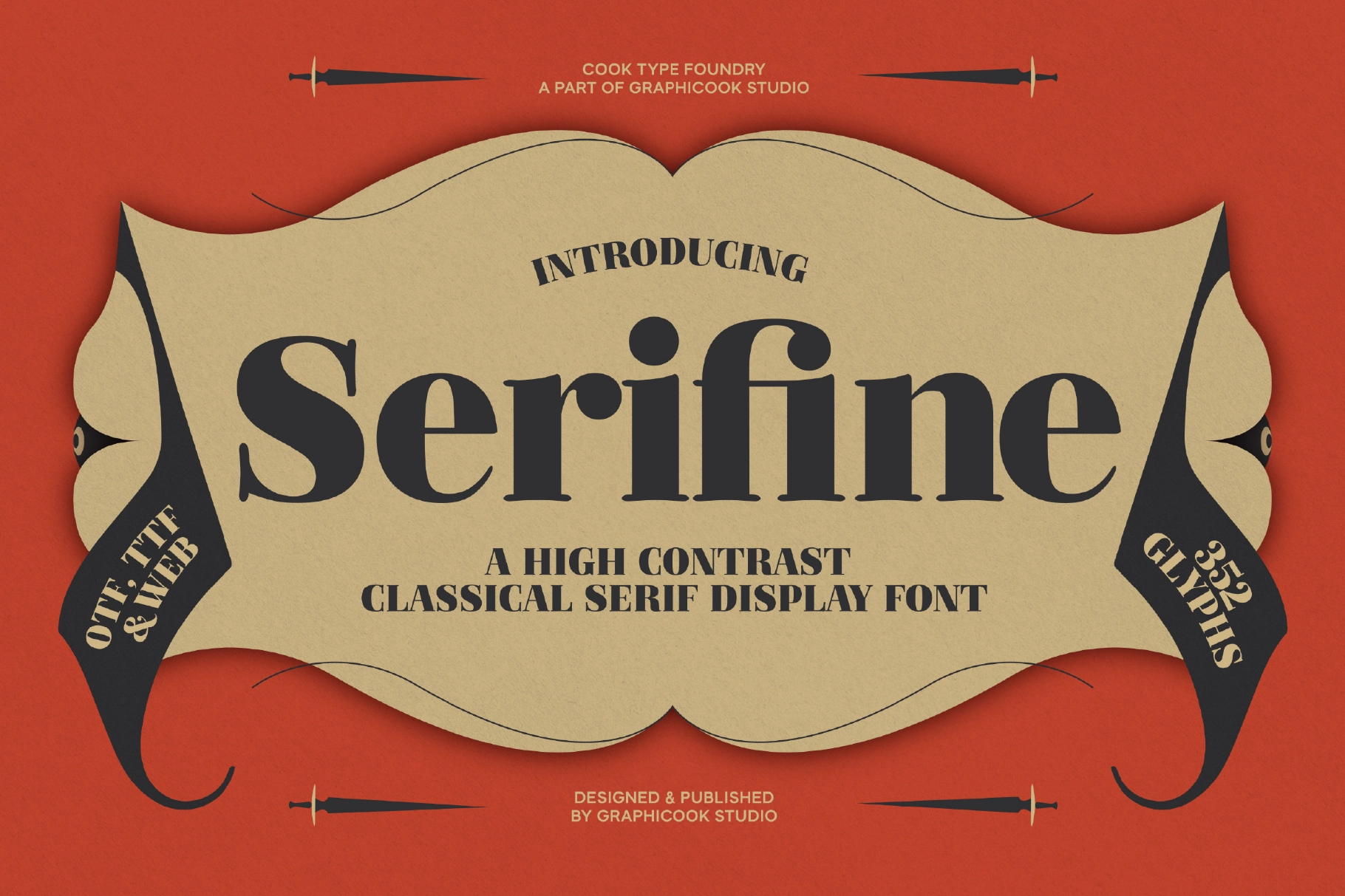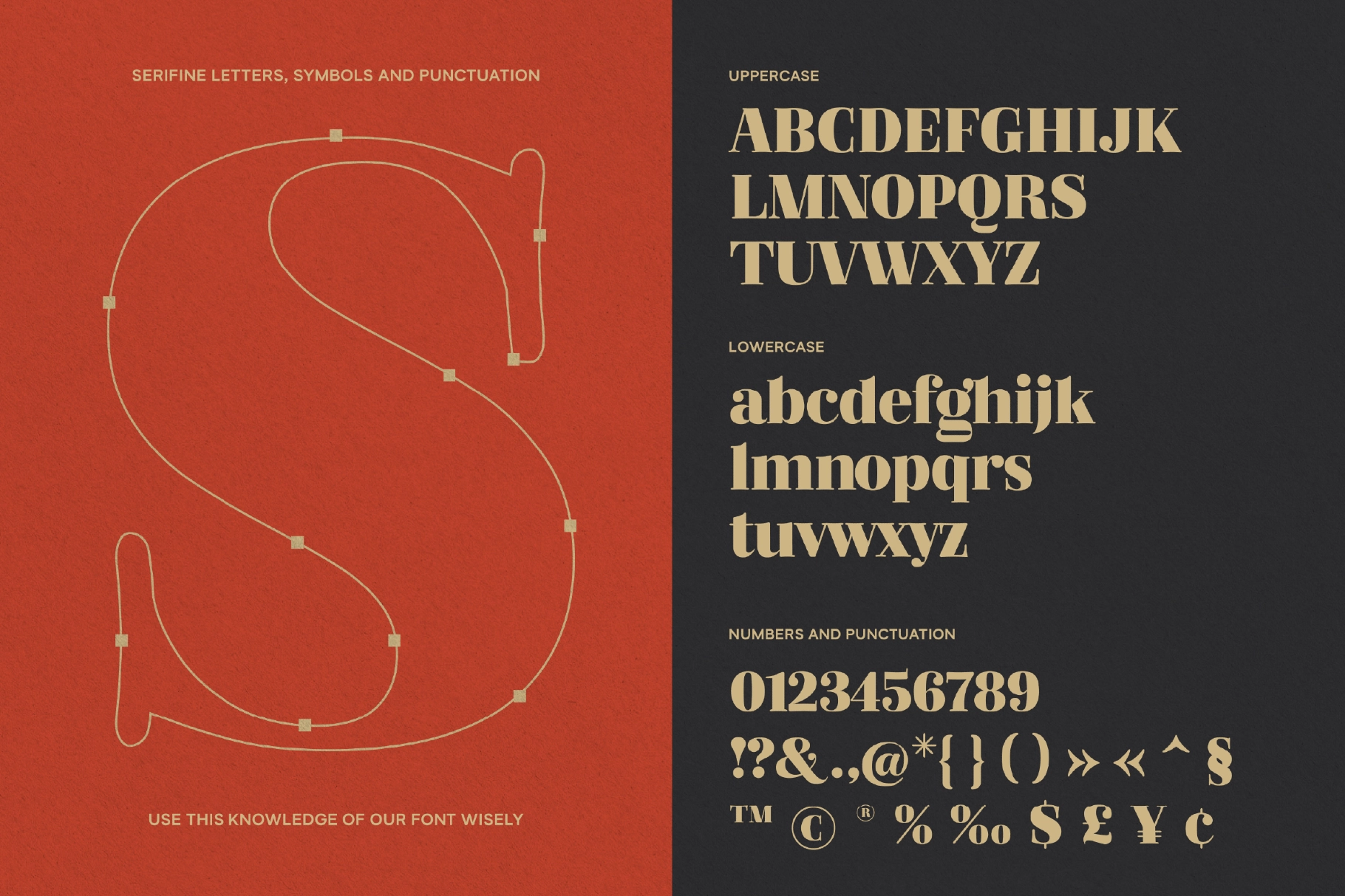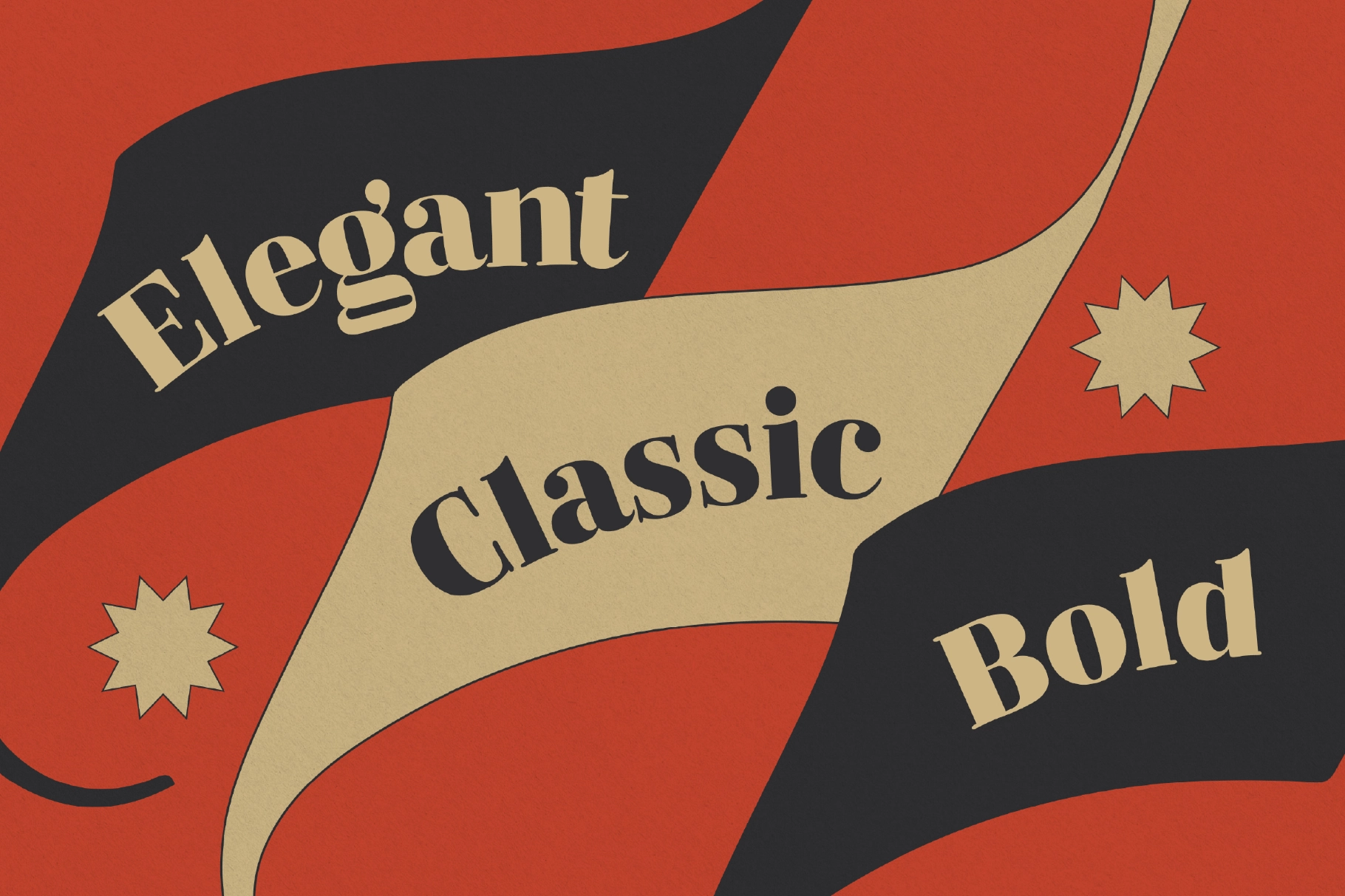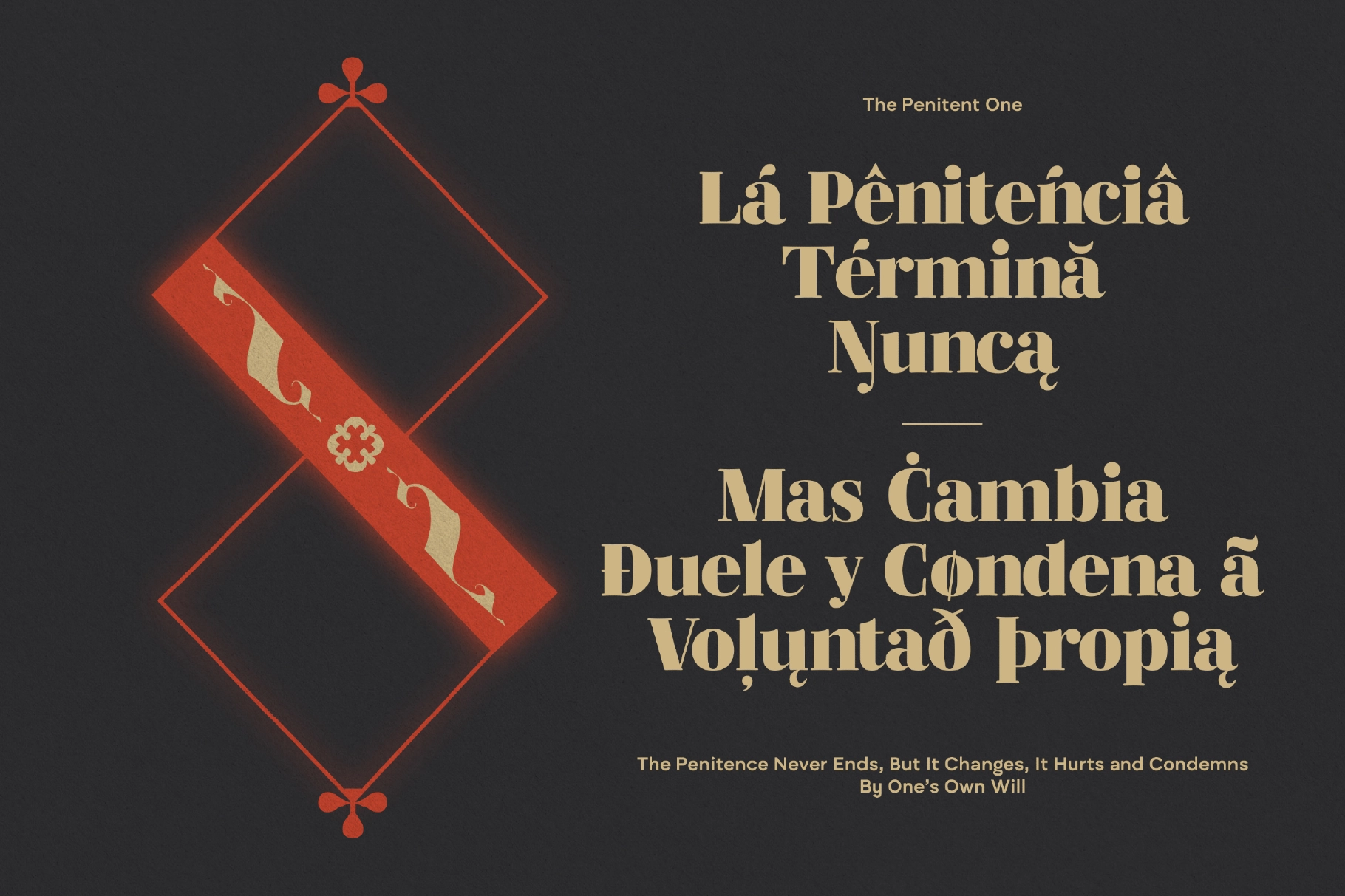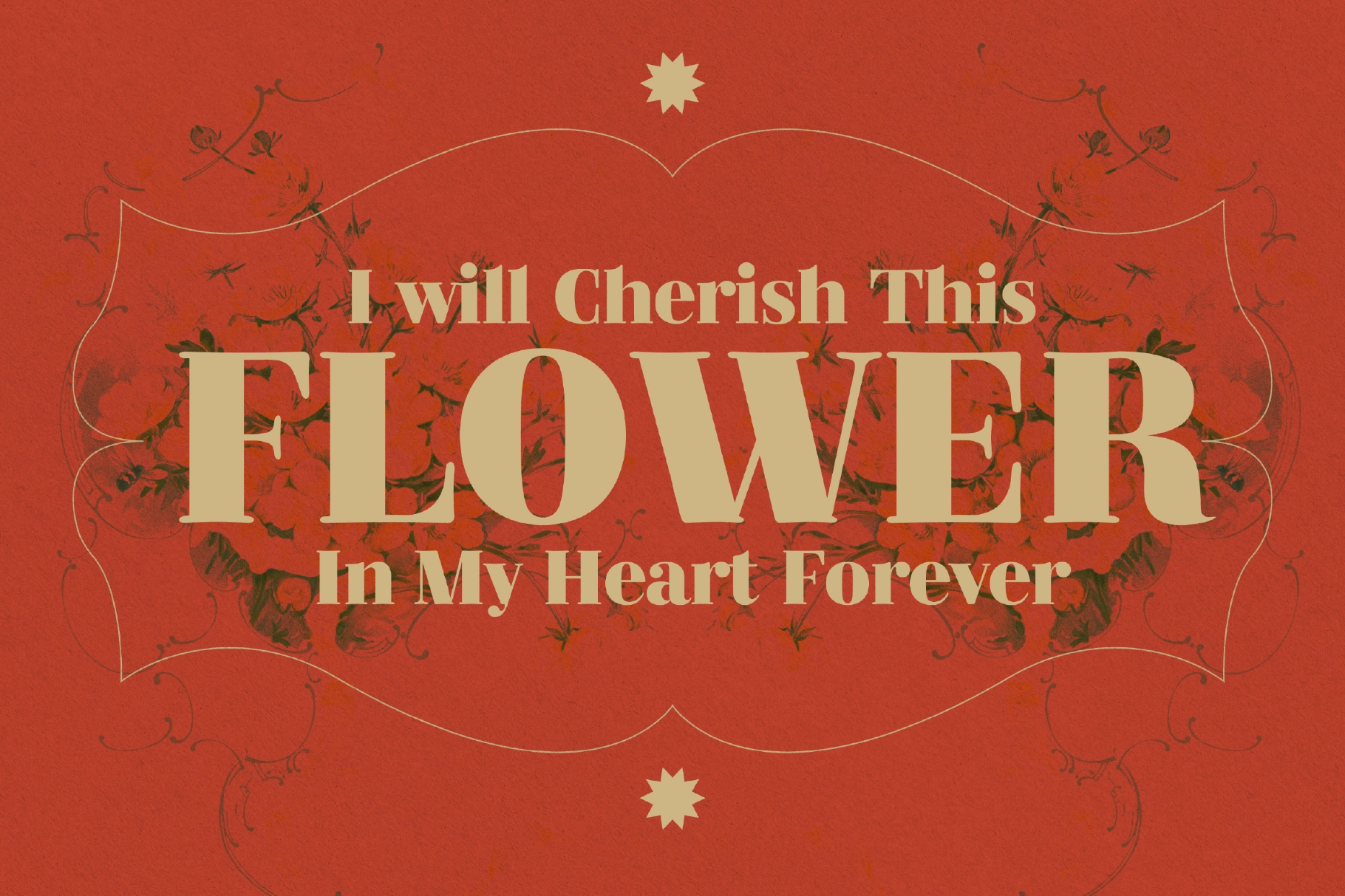
Serifine Font
Serifine
Serifine is a high-contrast serif font infused with retro vintage style. Its bold and solid appearance produces a nostalgic feel, making it perfect for headlines, logos, or designs that demand striking visual impact.